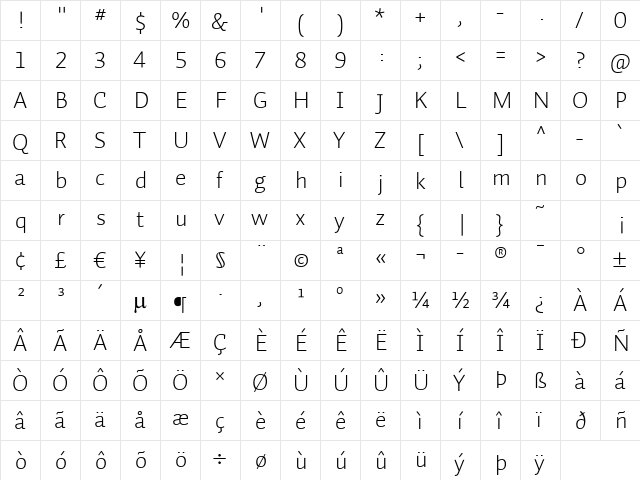
Auto 1 Light LF
Design Context for Auto 1 Typeface
Auto 1 offers clean, dependable letterforms without strong stylistic allegiance, making it a practical choice for designers who need flexibility. Its slender proportions lend an understated elegance to any composition.
Pro Tip: Pair Auto 1 with a font of contrasting weight or personality to build a more expressive typographic hierarchy.